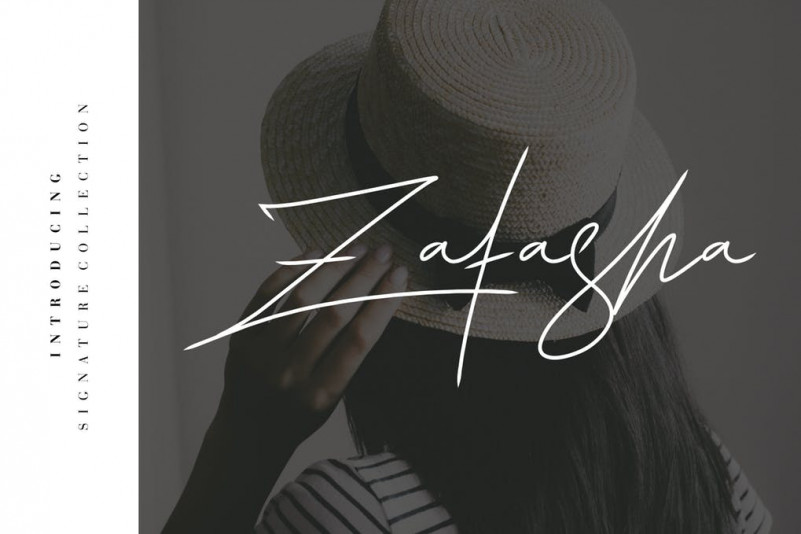
Zatasha Font
Zatasha handwirtten signature font is a handcrafted font that represents a natural and stylist flow. The combination of the soft touch and simplicity makes this font match pefectly with most casual occasion in our daily life. You can use it for personal branding but at the same time it’s still readable to be use for long paragraph love letter. Explore the possibilites and have fun with it!